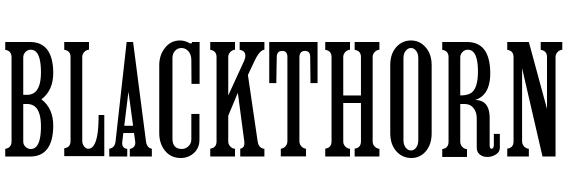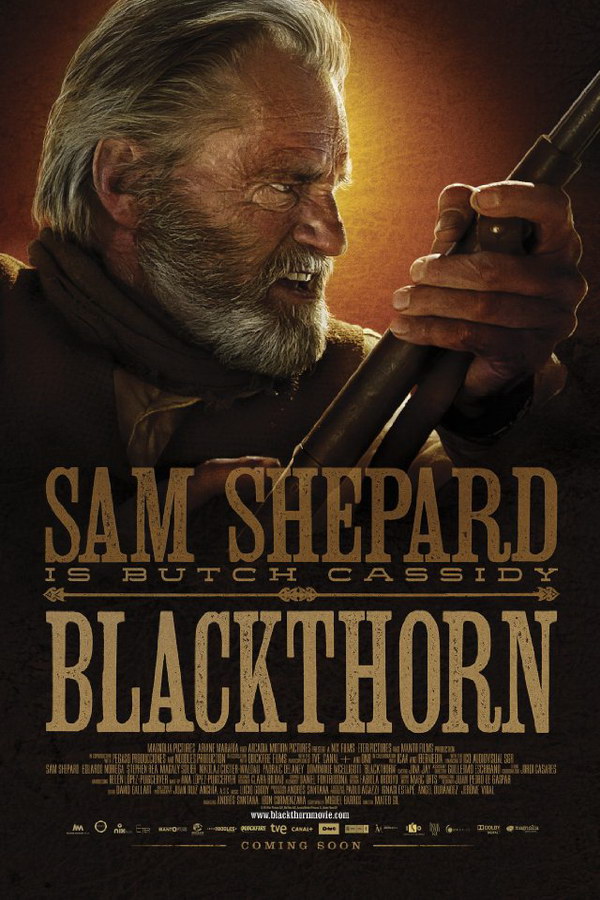
Blackthorn Font
AdventureBlackthorn is a 2011 Western film directed by Mateo Gil, featuring Sam Shepard as an aging Butch Cassidy reflecting on his past and embarking on one final adventure in Bolivia.
The movie title on the poster resembles the Roman Wood Type JNL font, created by Jeff Levine. This typeface draws inspiration from Clarendon Condensed wood type, and you can find further information about it here.